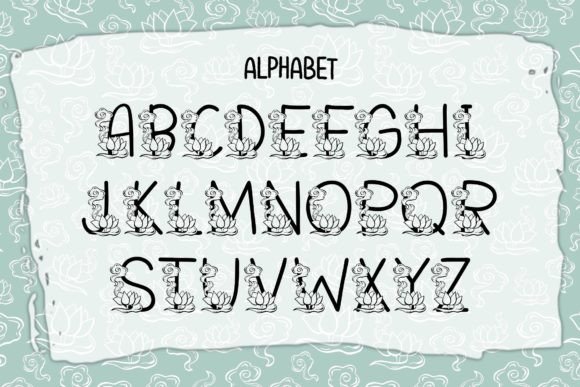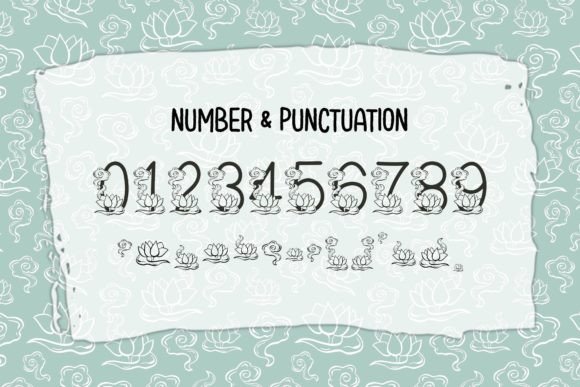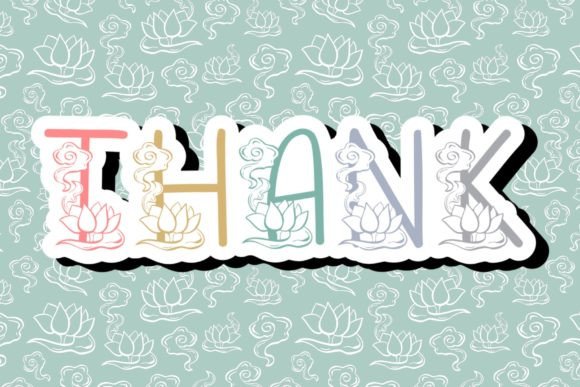
Introduction to Magic Lotus Font Font
Fonts play a crucial role in design, and the Magic Lotus Font font is a typeface that brings both character and versatility to any project. Whether you’re working on a branding project, a website, or a print design, the Magic Lotus Font font offers a unique style that can elevate your work.
Magic Lotus is a decorative sans serif font with a nature-magic design.
Each character features lovely lotus and magic cloud details This font is the perfect fit for all of your logos, branding, wall art, signs, cards, art prints, t-shirts, art prints, and much more.
Key Features of Magic Lotus Font Font
Why Choose Magic Lotus Font Font?
The Magic Lotus Font font is more than just a typeface – it’s a design tool that helps you communicate your message with style and clarity. Its unique character set and versatile design make it suitable for a wide range of applications, from elegant invitations to bold headlines.
With its carefully crafted letterforms and balanced proportions, the Magic Lotus Font font ensures readability and visual appeal across all mediums.
What makes Magic Lotus Font font special?
The Magic Lotus Font font stands out with its unique design, exceptional readability, and versatility across various design applications.